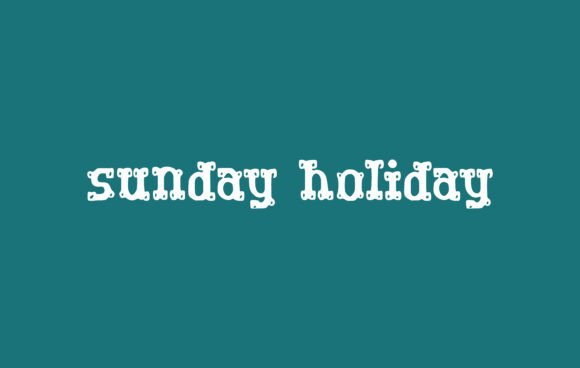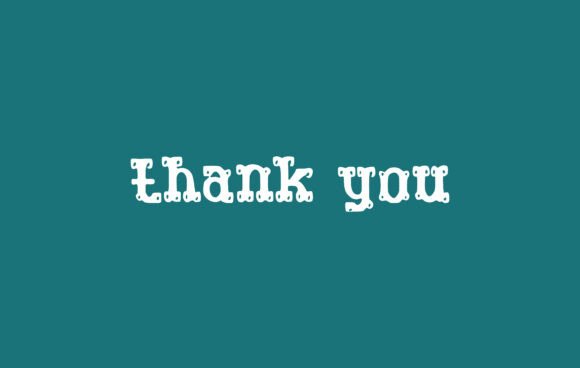
Introduction to Back to the Future Font
Back to the Future is an authentic font with a romantic touch.
Expertly designed to be a true favorite, this font has the potential to take your creative ideas to the highest level .
Key Features of Back to the Future Font
Why Choose Back to the Future Font?
Back to the Future Font offers exceptional quality and versatility, making it a valuable addition to your design toolkit. Whether you’re creating for personal projects or commercial use, Back to the Future Font delivers professional results.